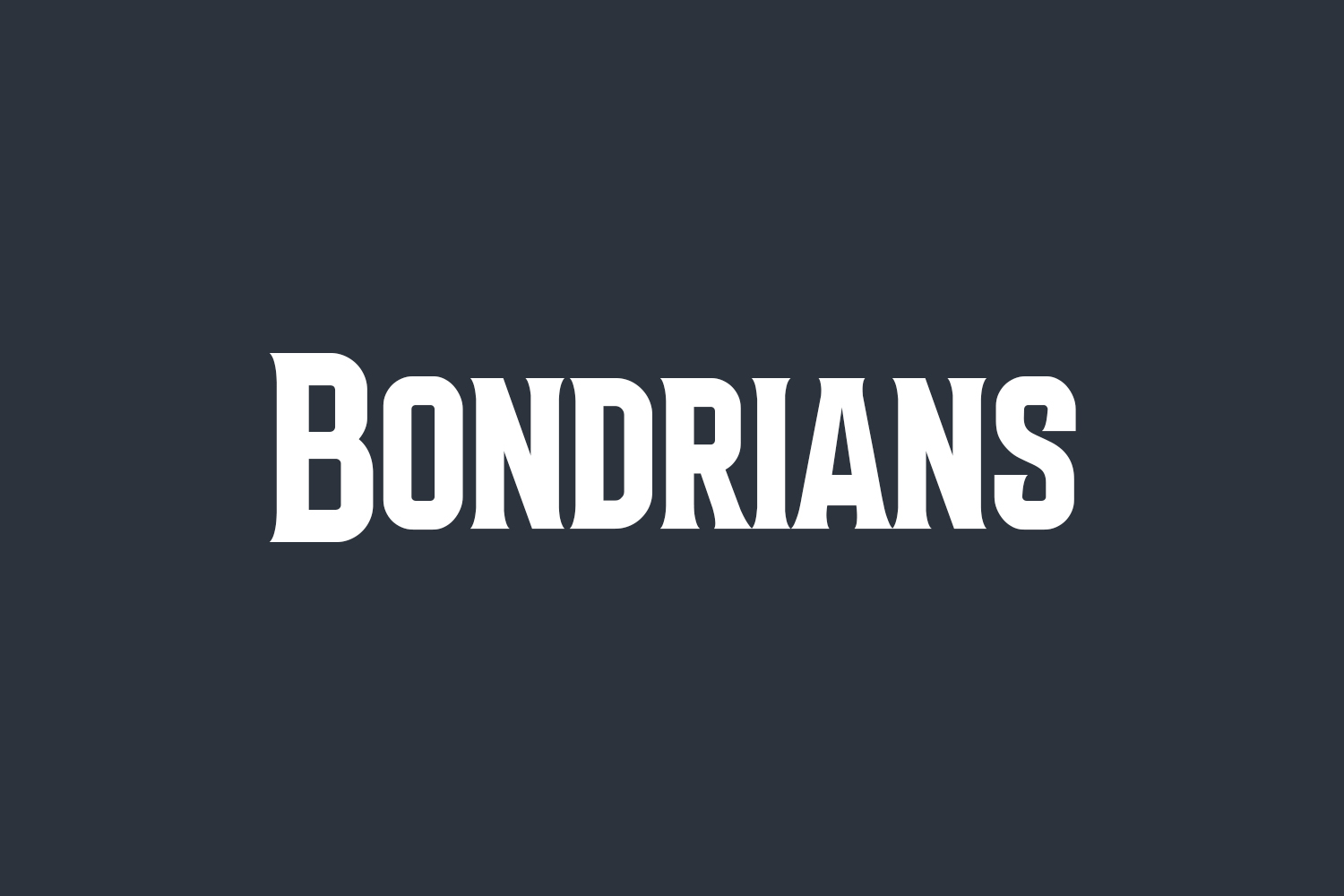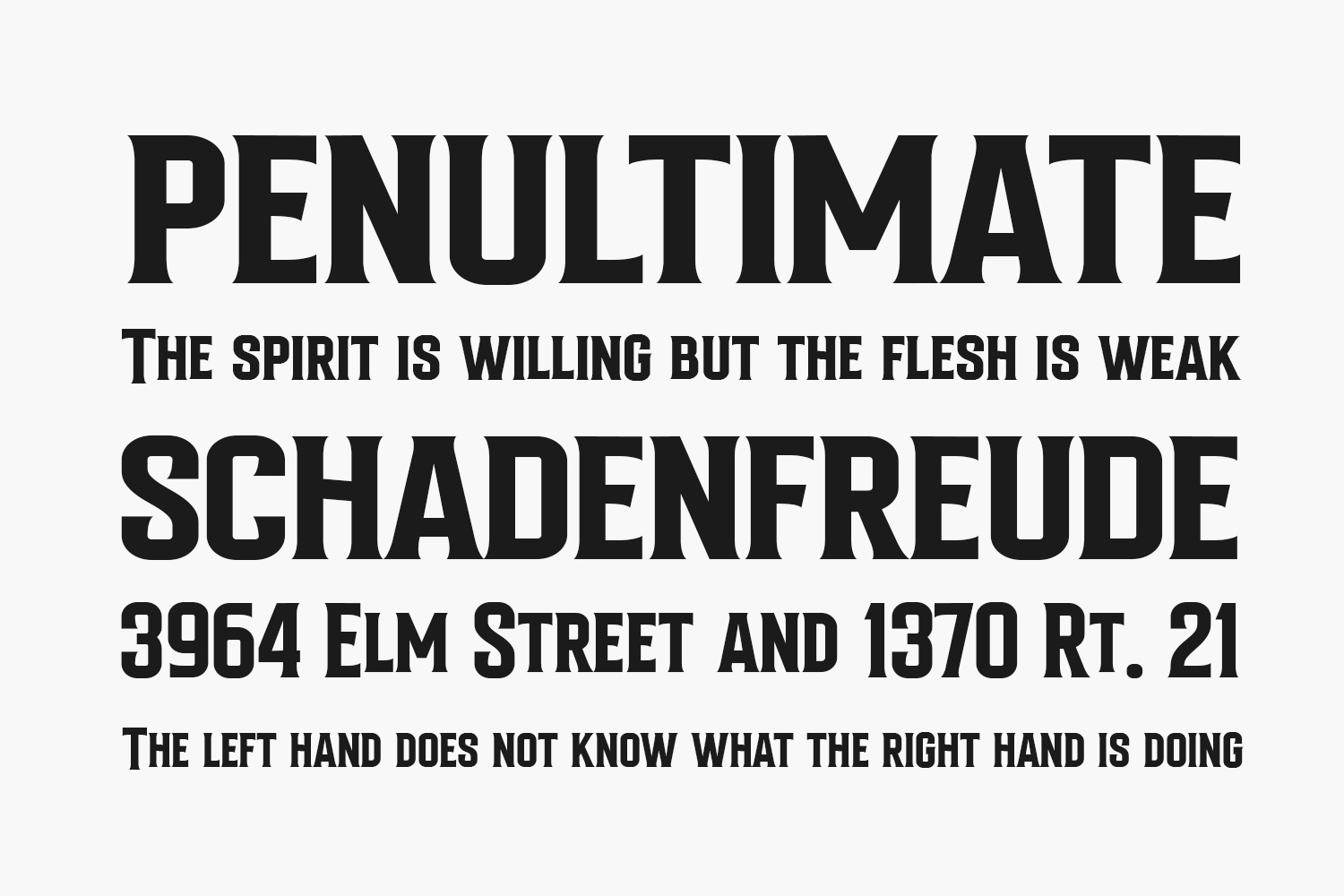
Bondrians Free Font is an authentic display font, characterized by a vintage style. This dazzling display font will turn any creative idea into a standout. Bondrians Free Font was designed by Arterfak Project and is free for personal use only. Please purchase the full version for commercial use.